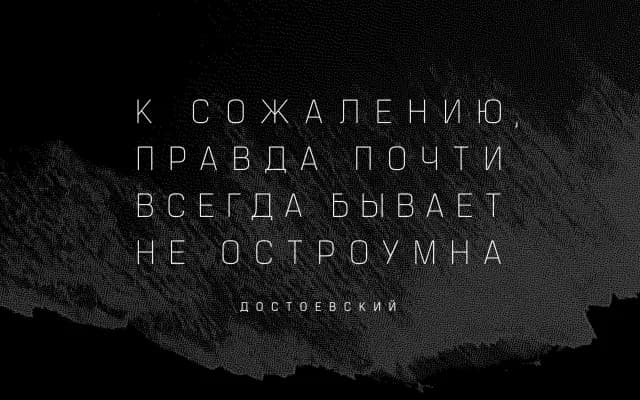
Manifold CF
A utilitarian geometric sans with a tall x-height and engineering precision, available in eight weights across standard and extended widths with variable font support.
Built around terminal-inspired forms and a tall x-height, it suits interface design, short copy and, when tracked out, cinematic headlines. The Extended subfamily widens the proportions into confident, broad forms suited to tech branding, sports and bold editorial. Thirty-two styles in total, including four variable fonts, with coverage across Latin Extended, Cyrillic and Vietnamese spanning more than thirty languages.
A utilitarian geometric sans with terminal-inspired precision and a tall x-height, positioned for interfaces and technical applications. The page describes it as merging engineering clarity with a warm, unified structure.